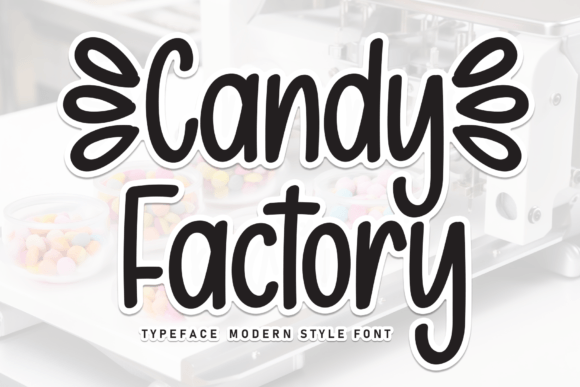
Crafting Sweet Designs with the Candy Factory Font
Have you ever sat at your desk, staring blankly at a blank canvas, waiting for inspiration to strike? The moment when the creative wheels start turning and your imagination runs wild is always the most thrilling part of any design project. And that’s exactly what happened when we stumbled upon the enchanting Candy Factory Font.
This elegant, handwritten font is a treasure trove of creative possibilities, perfect for designers looking to add a touch of whimsy and sophistication to their work. With its flowing lines and timeless style, the Candy Factory Font is sure to captivate your audience and leave a lasting impression.
Candy Factory Font Key Features
- Unique Characteristics: The Candy Factory Font features a playful, whimsical design with intricate details and textures, perfect for creating eye-catching and engaging graphics.
- Font Style: This font comes in 2 different styles: Regular and Bold, offering flexibility in design and layout.
Candy Factory Font Review
First off, I have to say that the Candy Factory Font has a lot going for it. The playful, whimsical design ✨ really captures the essence of a classic candy factory. The font is bold, colorful, and fun, making it perfect for any project that needs a touch of nostalgia and excitement.
One of the things that really stands out about this font is its versatility. It’s available in a range of weights and styles, from light to bold, making it easy to use in a variety of contexts. Additionally, the font is highly customizable, allowing you to adjust the colors, sizes, and spacing to fit your specific needs.
However, there are a few limitations to consider ⚠️. For one, the font may be a bit too playful for some projects. If you’re looking for a more serious or professional tone, this font may not be the best choice. Additionally, some users have reported issues with the font’s consistency across different platforms and devices.
Overall, I’d say that the Candy Factory Font is a solid choice for anyone looking for a fun, playful font. While it may not be perfect, its versatility and customizability make it a great option for a wide range of projects.
Here are some pros and cons to consider:
- ✨ Playful, whimsical design
- ✨ Versatile and customizable
- ⚠️ May be too playful for some projects
- ⚠️ Consistency issues across platforms and devices
Candy Factory Font Practical Application Guide
The Candy Factory Font is ideal for:
– Children’s party invitations and decorations
– Candy and sweets branding
– Whimsical and playful designs
– Illustrations and graphics for magazines and books
To get the most out of the Candy Factory Font, consider the following tips:
– Use it in combination with bright and pastel colors for a playful look
– Experiment with different font sizes and styles to create visual interest
– Use it for headings and titles to add a touch of whimsy
Alternatives to Candy Factory Font
Great Vibes Font is a modern, elegant script font that works well for titles and headings. It’s ideal for designs that require a touch of sophistication and elegance. Great Vibes Font is more versatile than Candy Factory Font, with a wider range of styles and variations available.
Alex Brush Font is a beautiful, handwritten font that’s perfect for designs that require a personal touch. It’s suitable for use in titles, headings, and body text, and works well for designs that require a mix of elegance and playfulness. Alex Brush Font is more refined than Candy Factory Font, with a more polished and sophisticated look.